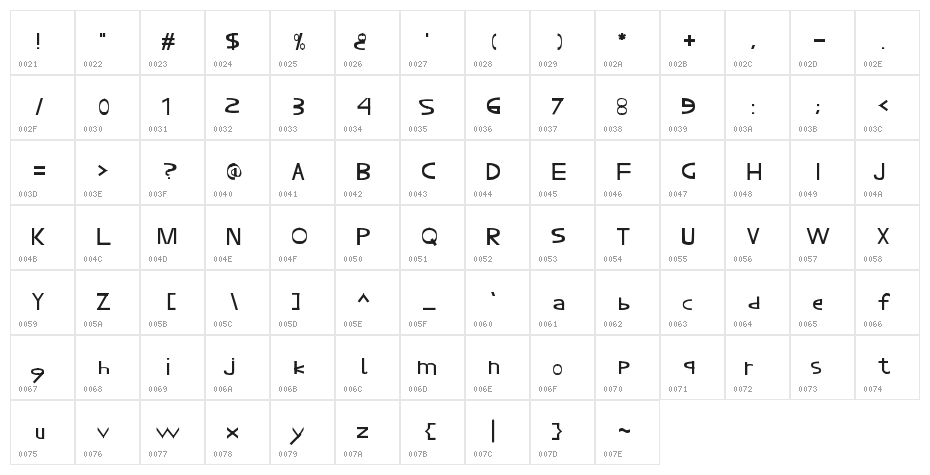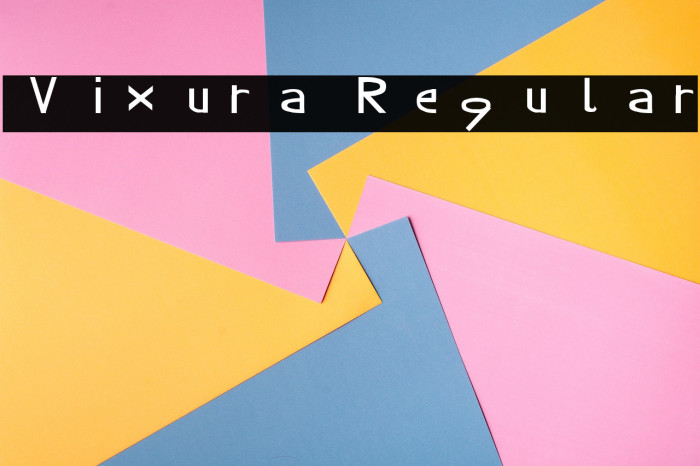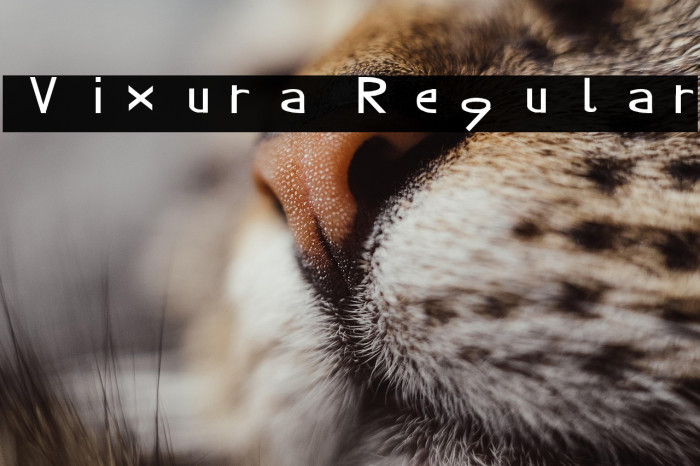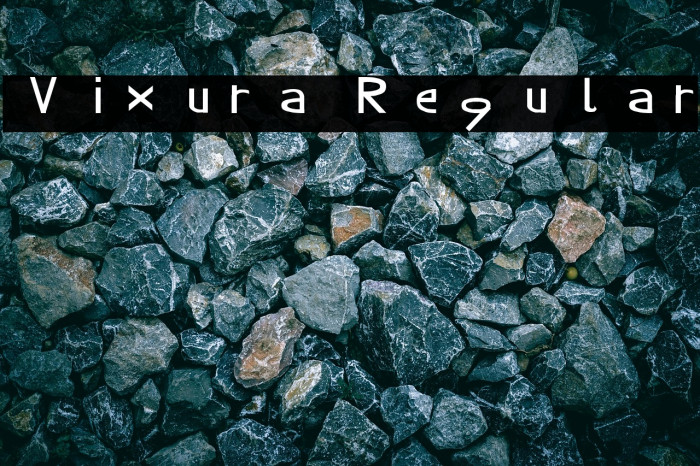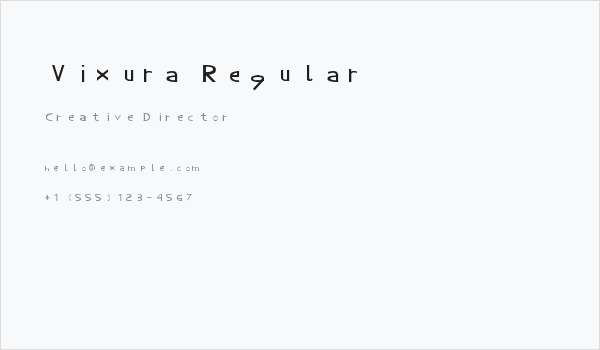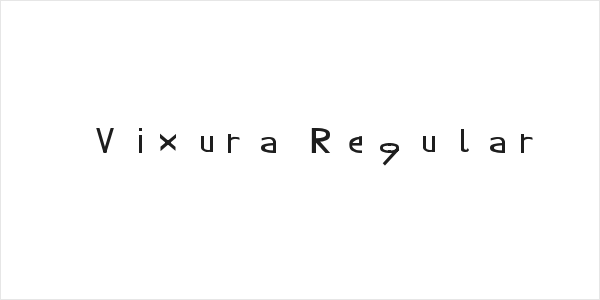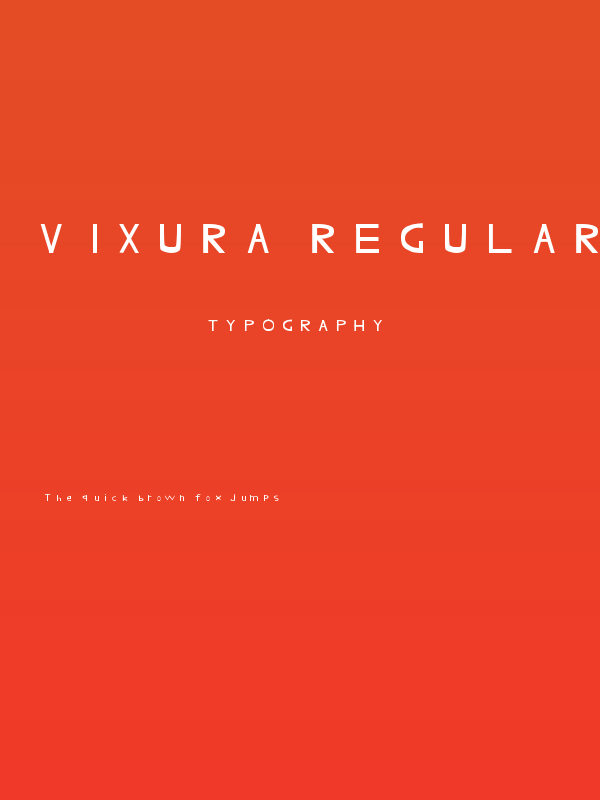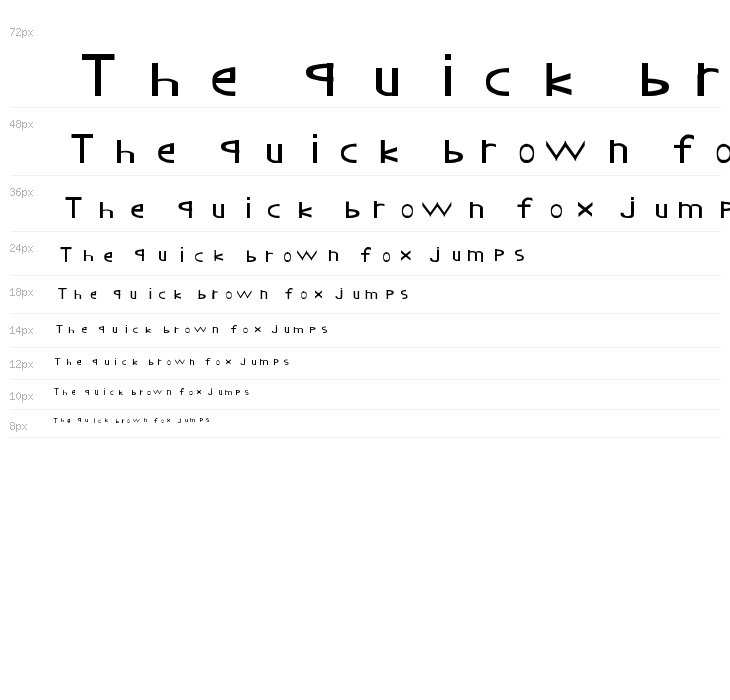
Vixura Regular Font
Vixura Regular Description
This font features a clean and modern design with a sans-serif style, characterized by its simplicity and readability. The letters are evenly spaced with a consistent stroke width, providing a balanced and harmonious appearance. The uppercase and lowercase letters maintain a uniform height, contributing to its structured and orderly look. The numerals and special characters are designed to complement the alphabet, ensuring versatility in various applications. The overall aesthetic is sleek and professional, making it suitable for both digital and print media.
| Proposed Projects | Ideal for corporate branding, website design, digital media, and print materials such as brochures and business cards. |